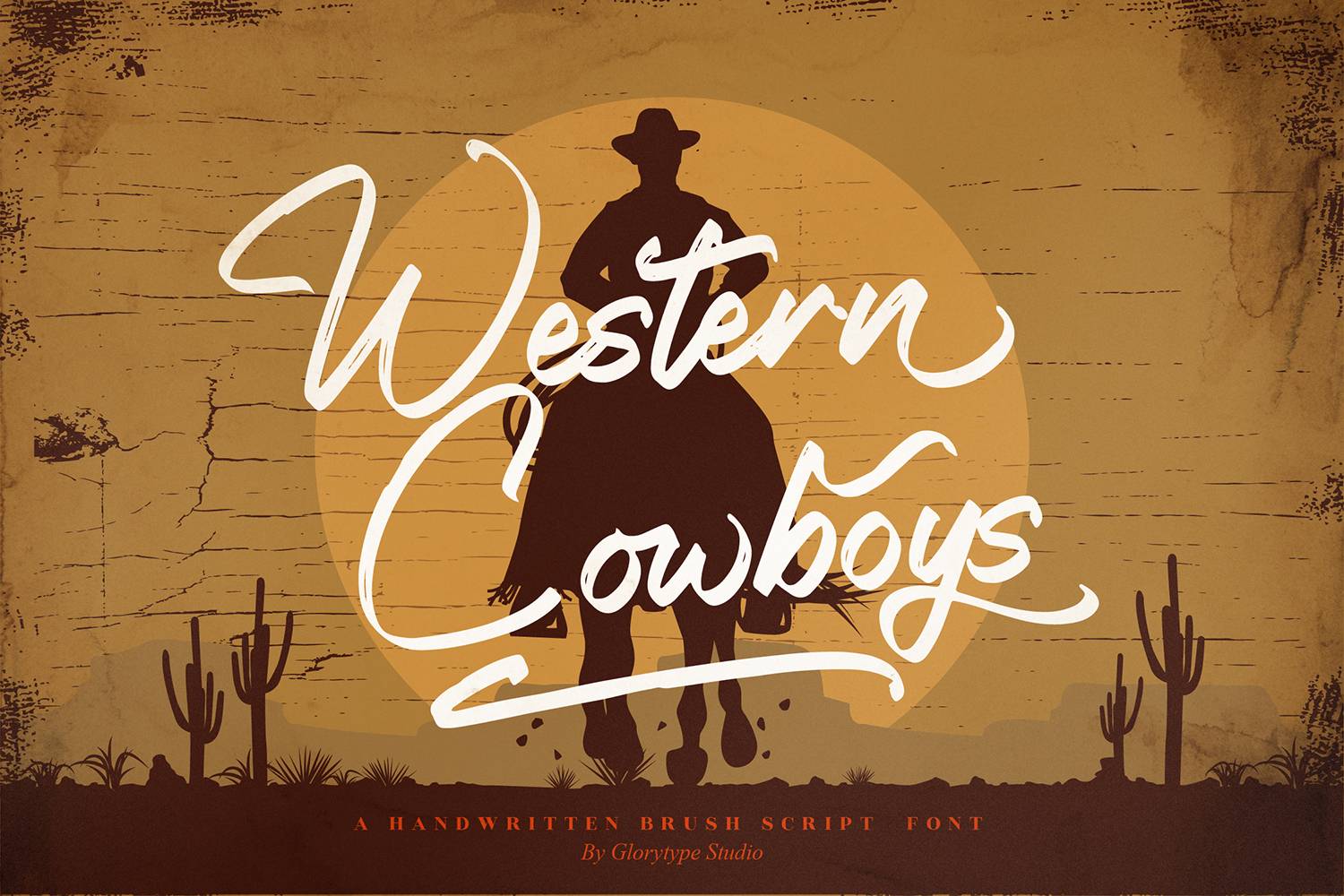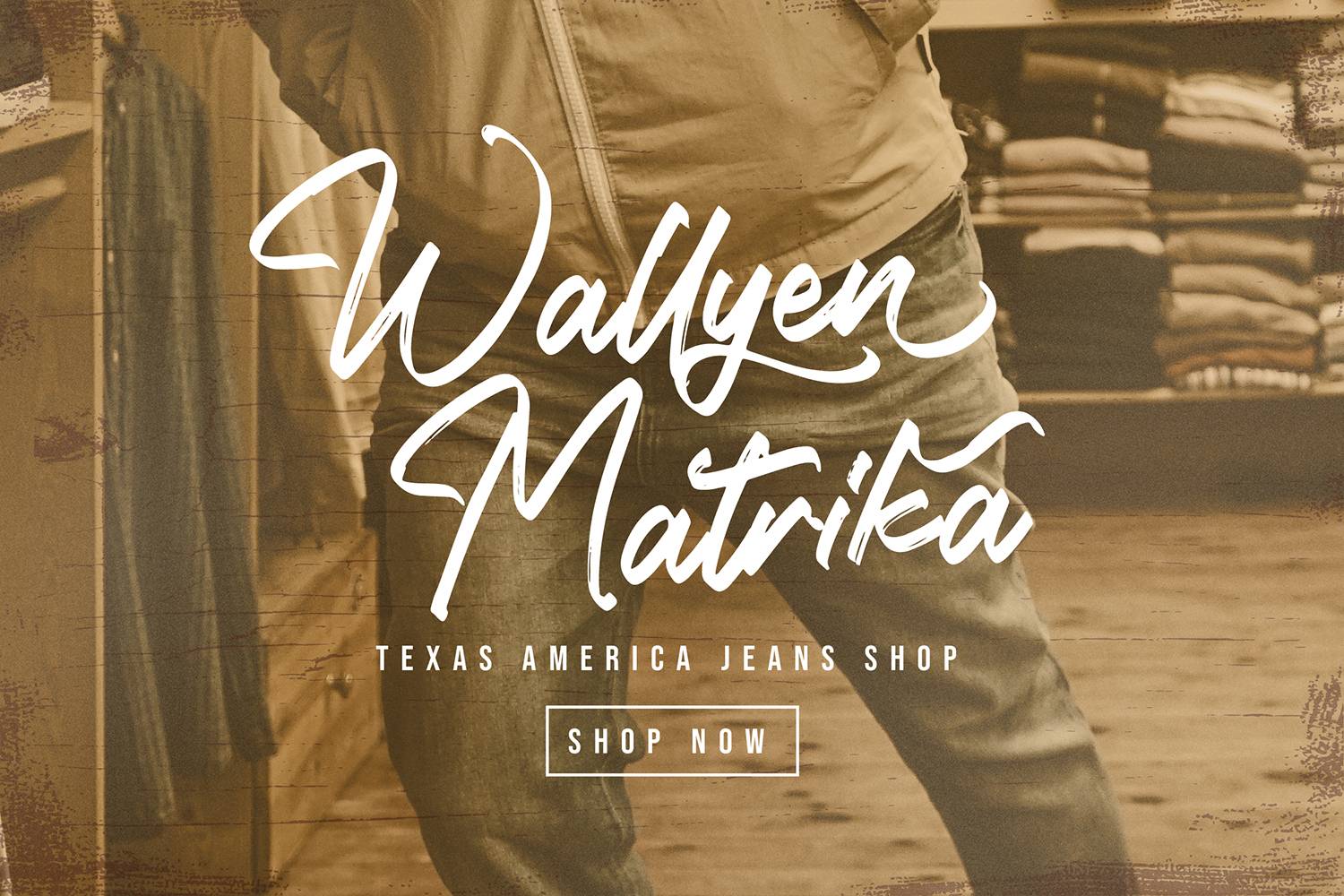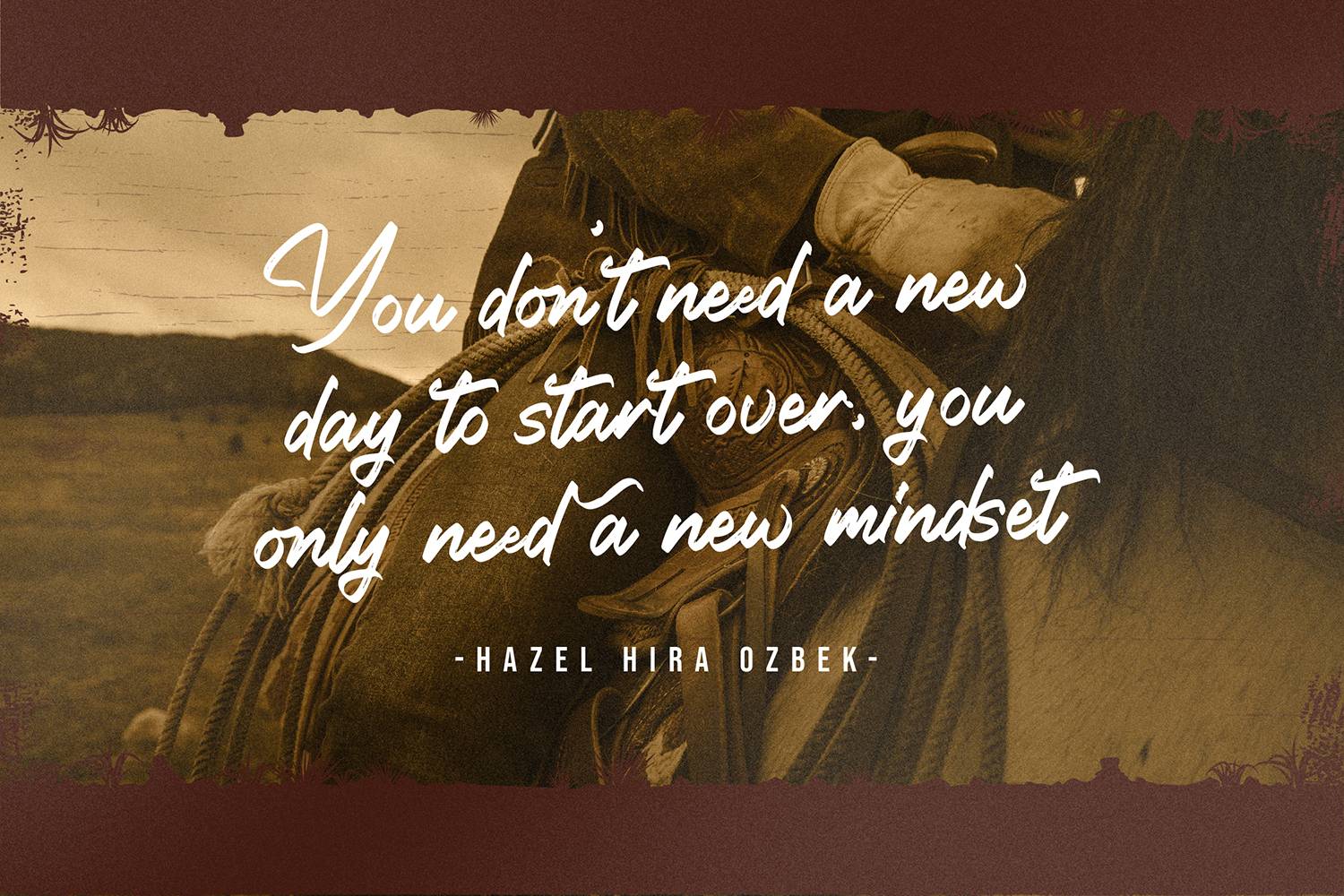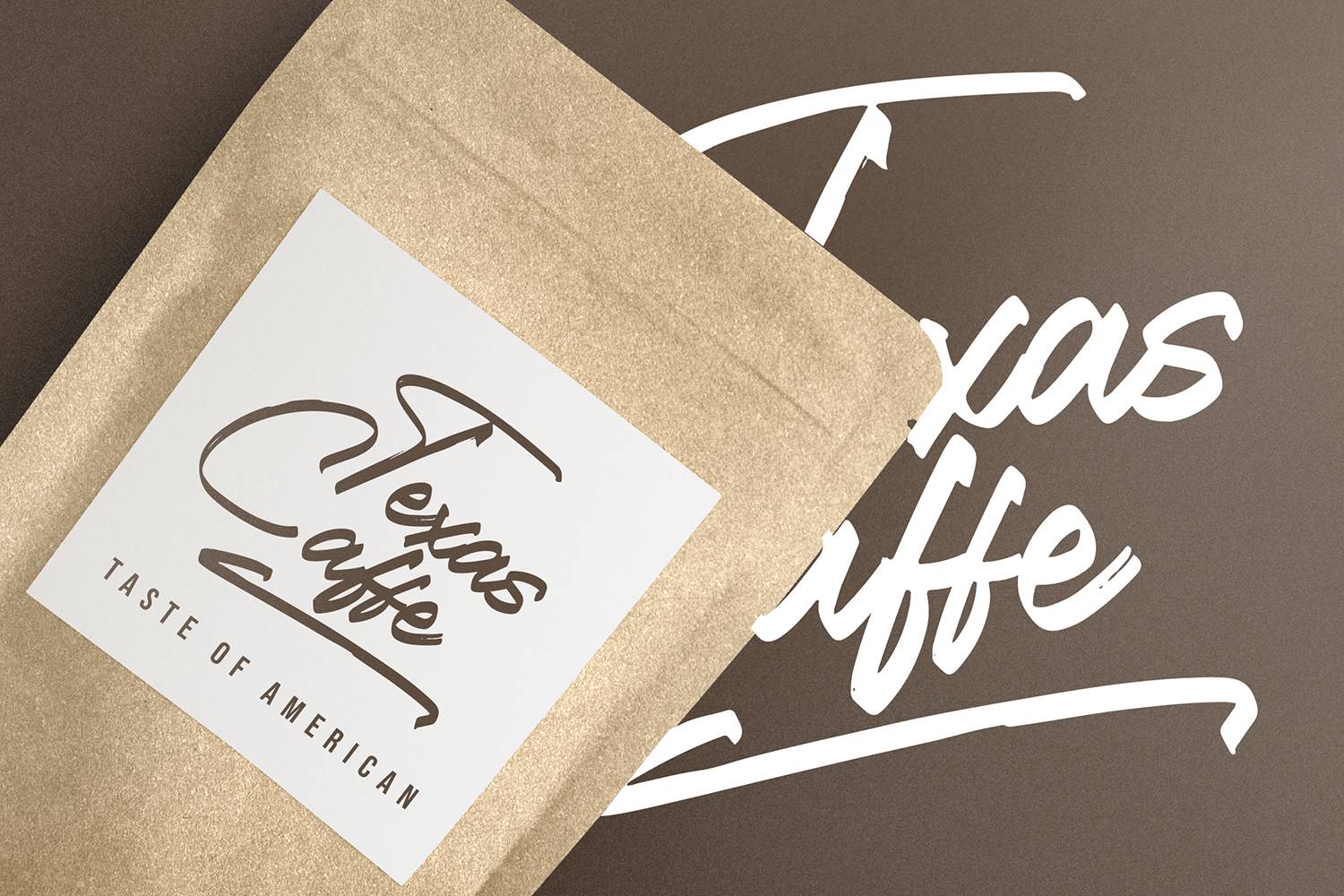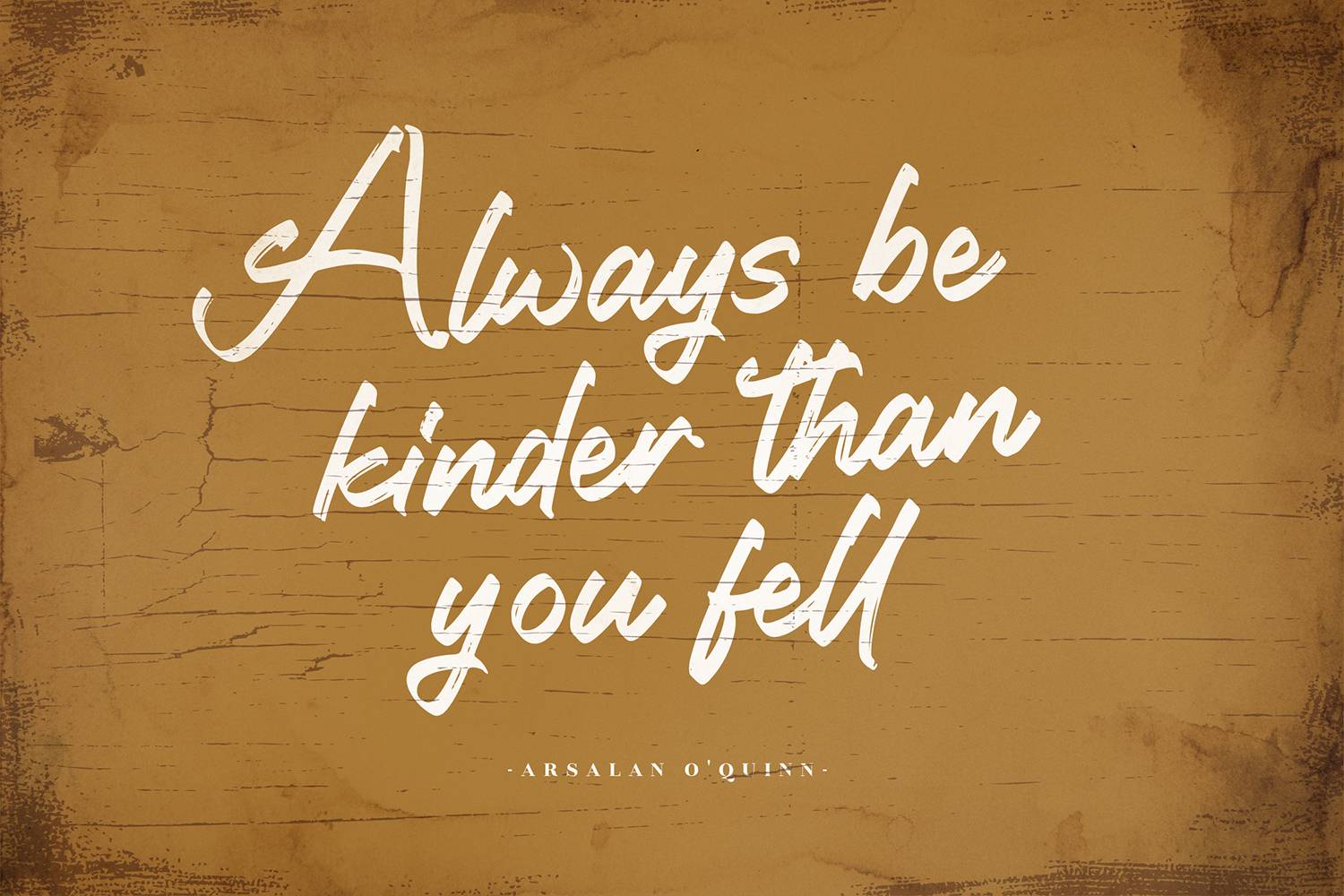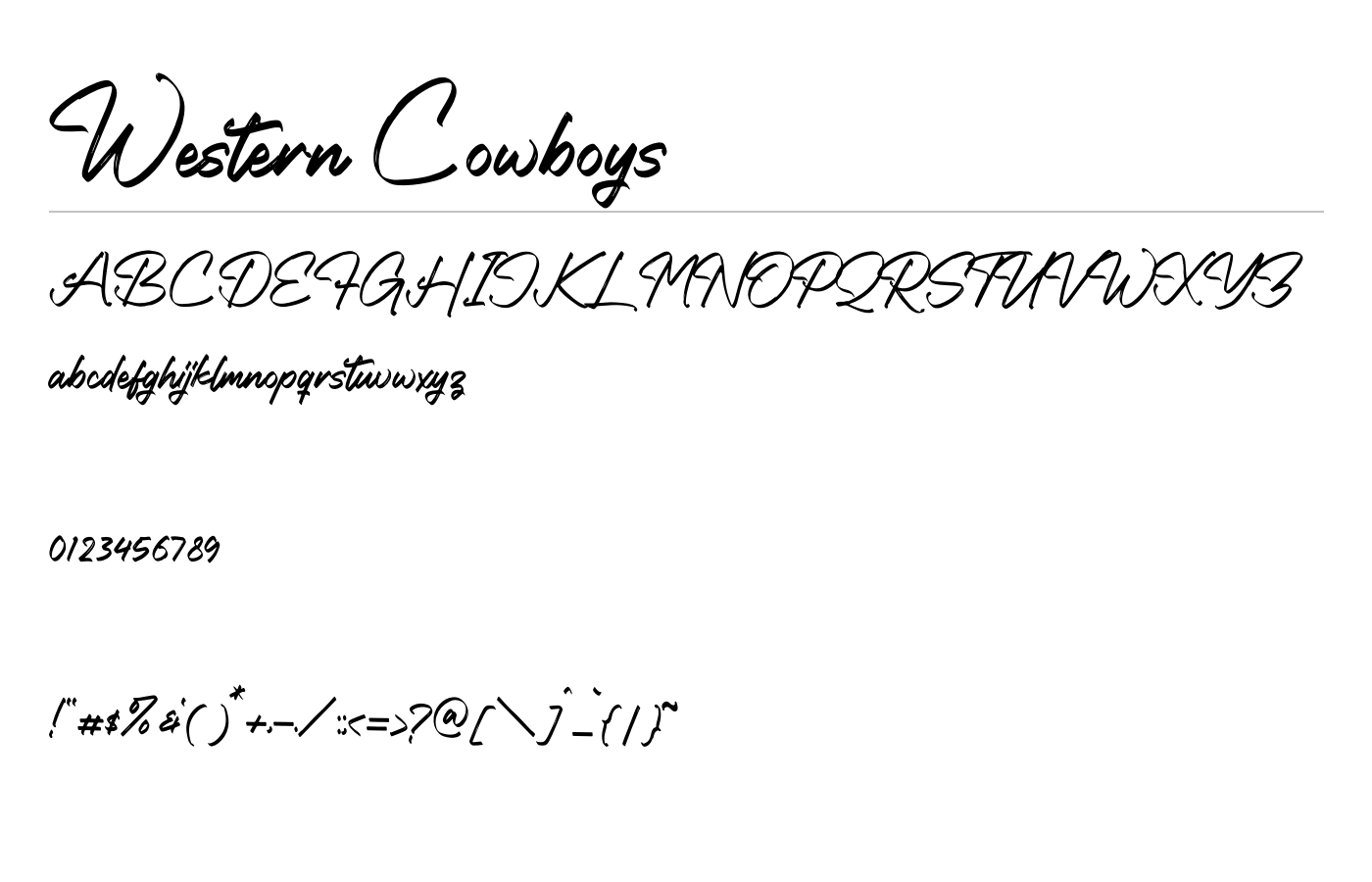
Western Cowboys is a lively script font with a handwritten, brush-like style that captures a rustic yet elegant vibe. Its flowing uppercase letters and varied stroke widths make it ideal for adding a personal, vintage feel to branding, logos, and creative headlines that demand an authentic and dynamic touch. This font works best where a natural, expressive character is needed to evoke charm and warmth, especially in Western or nostalgic-themed designs.
Western Cowboys Font
About Western Cowboys Font